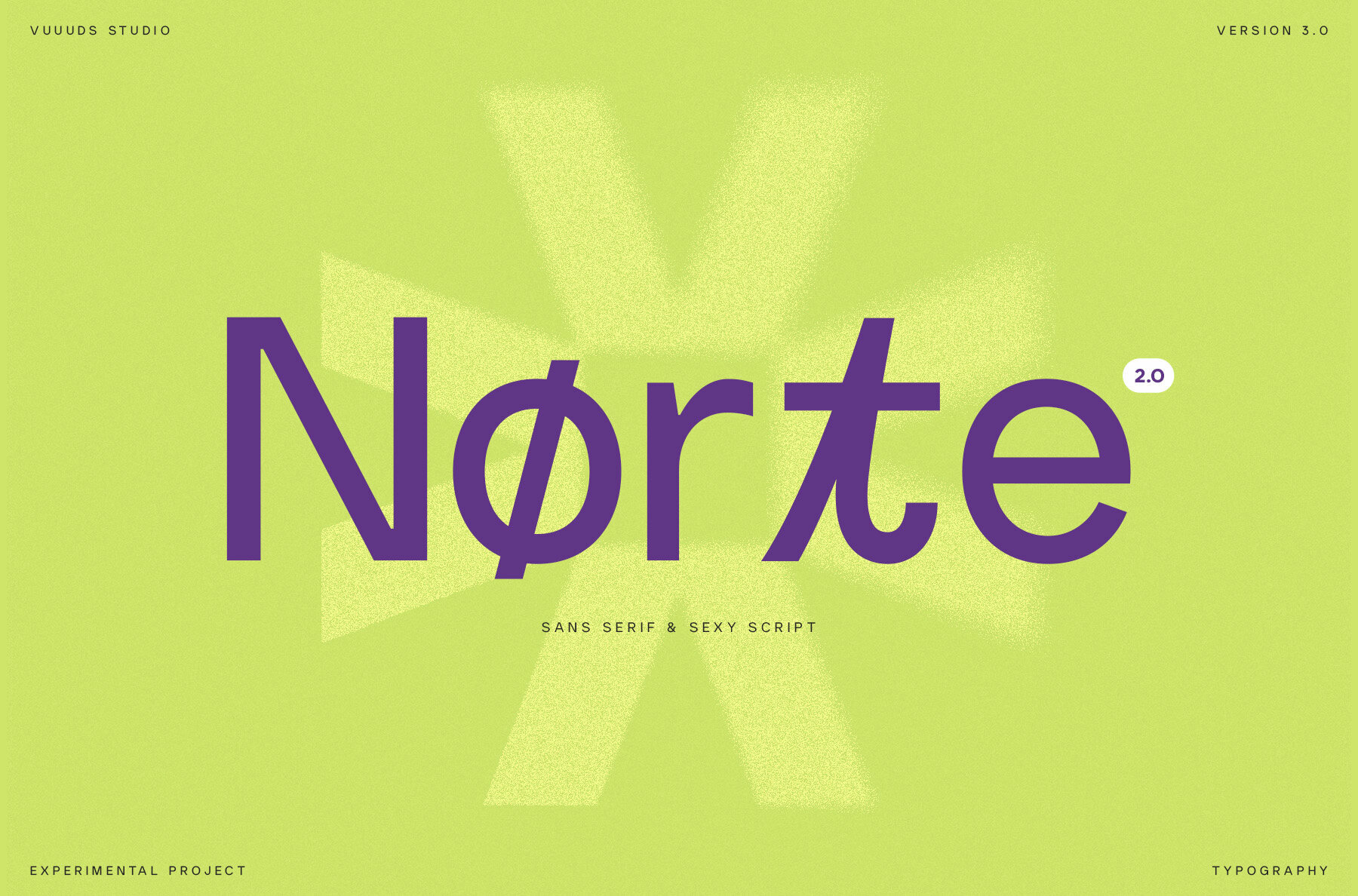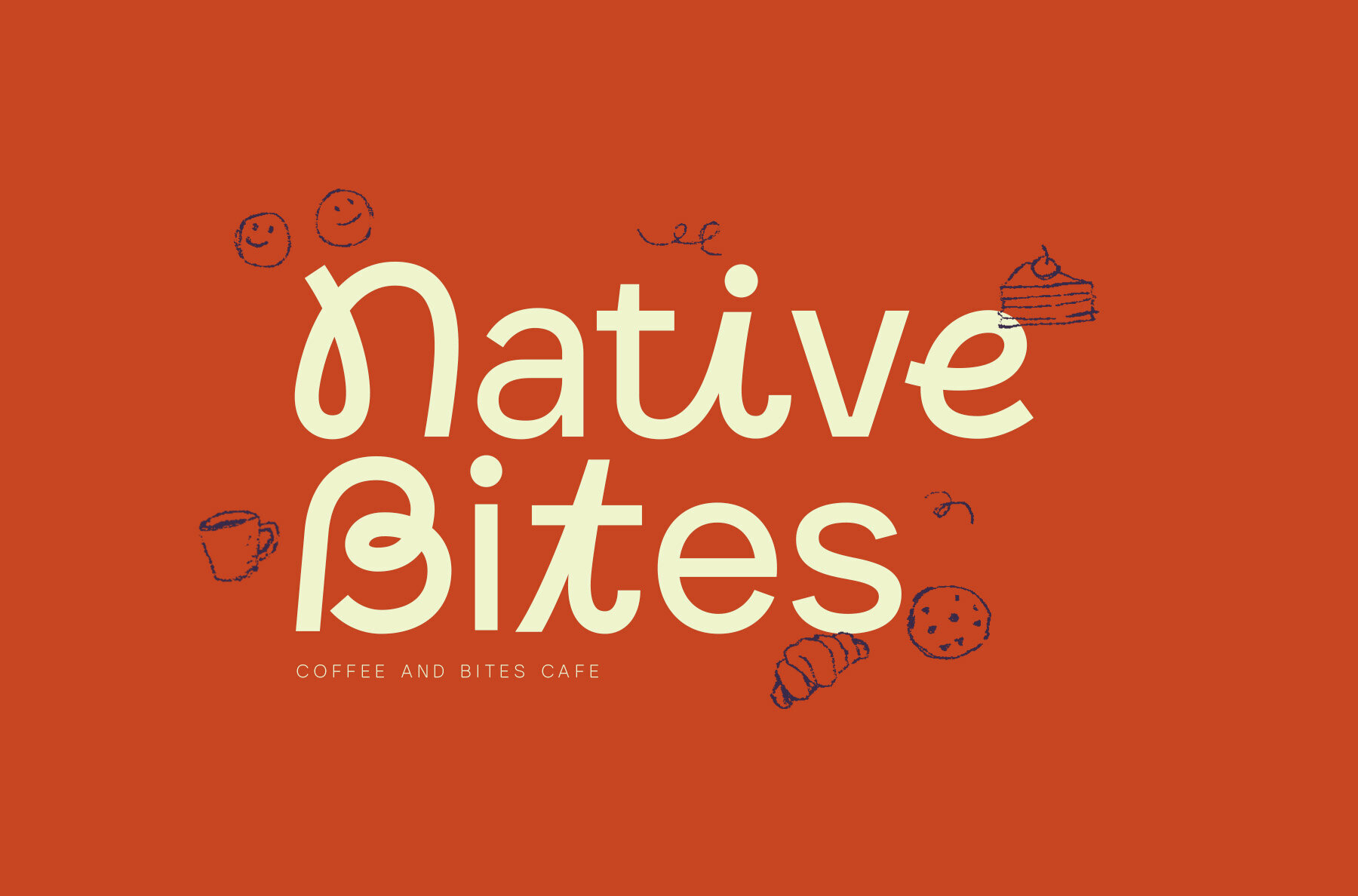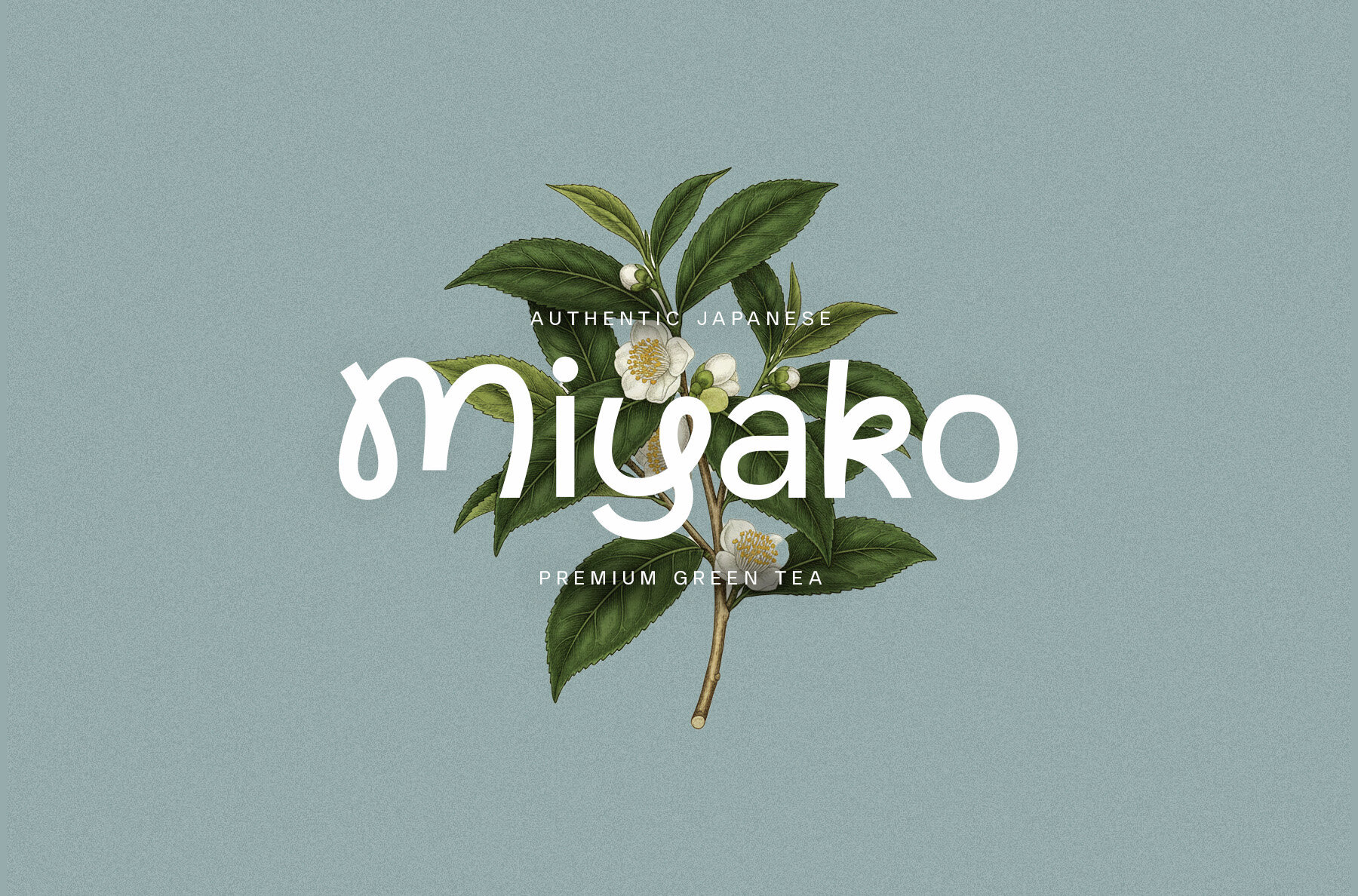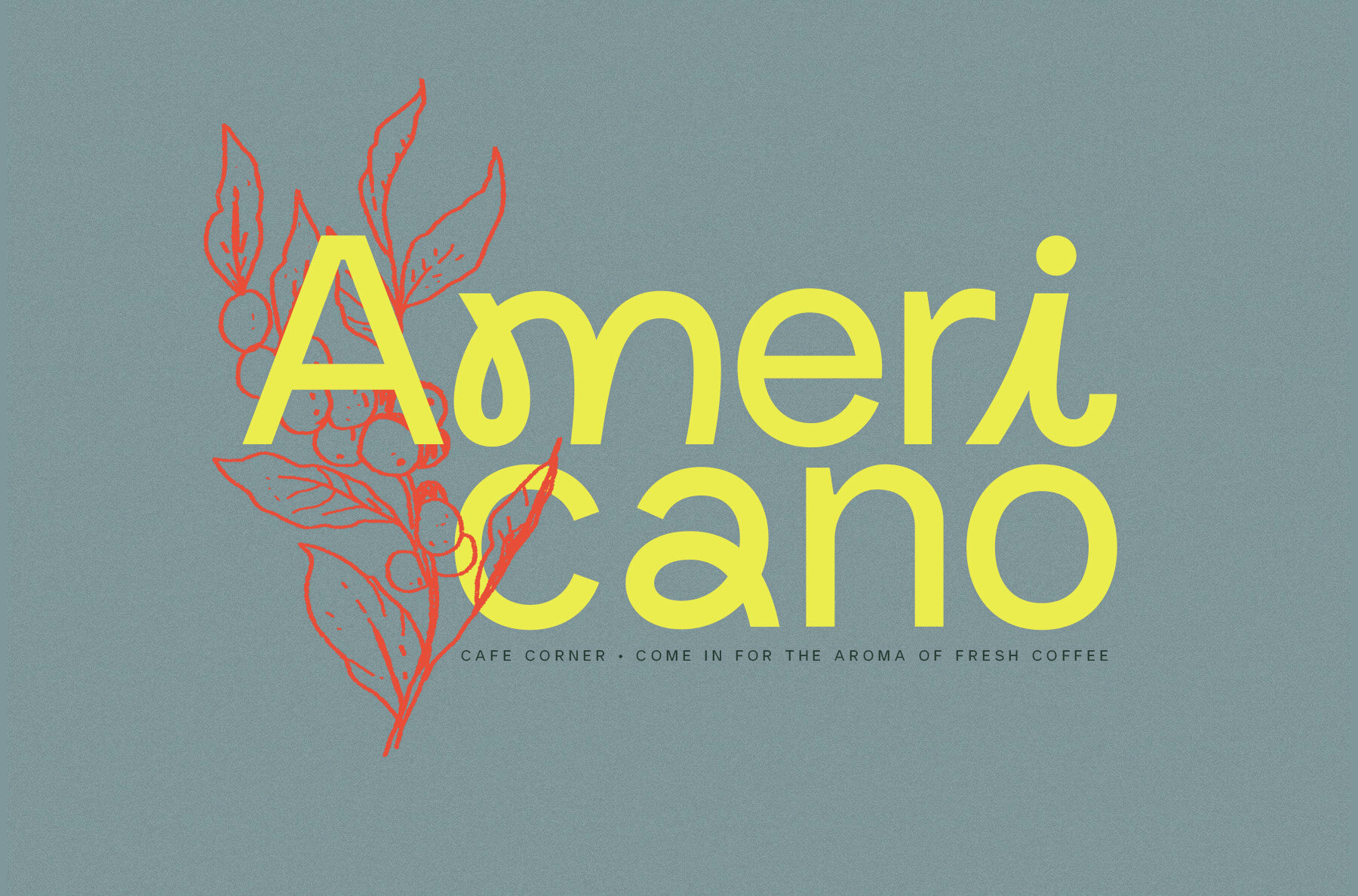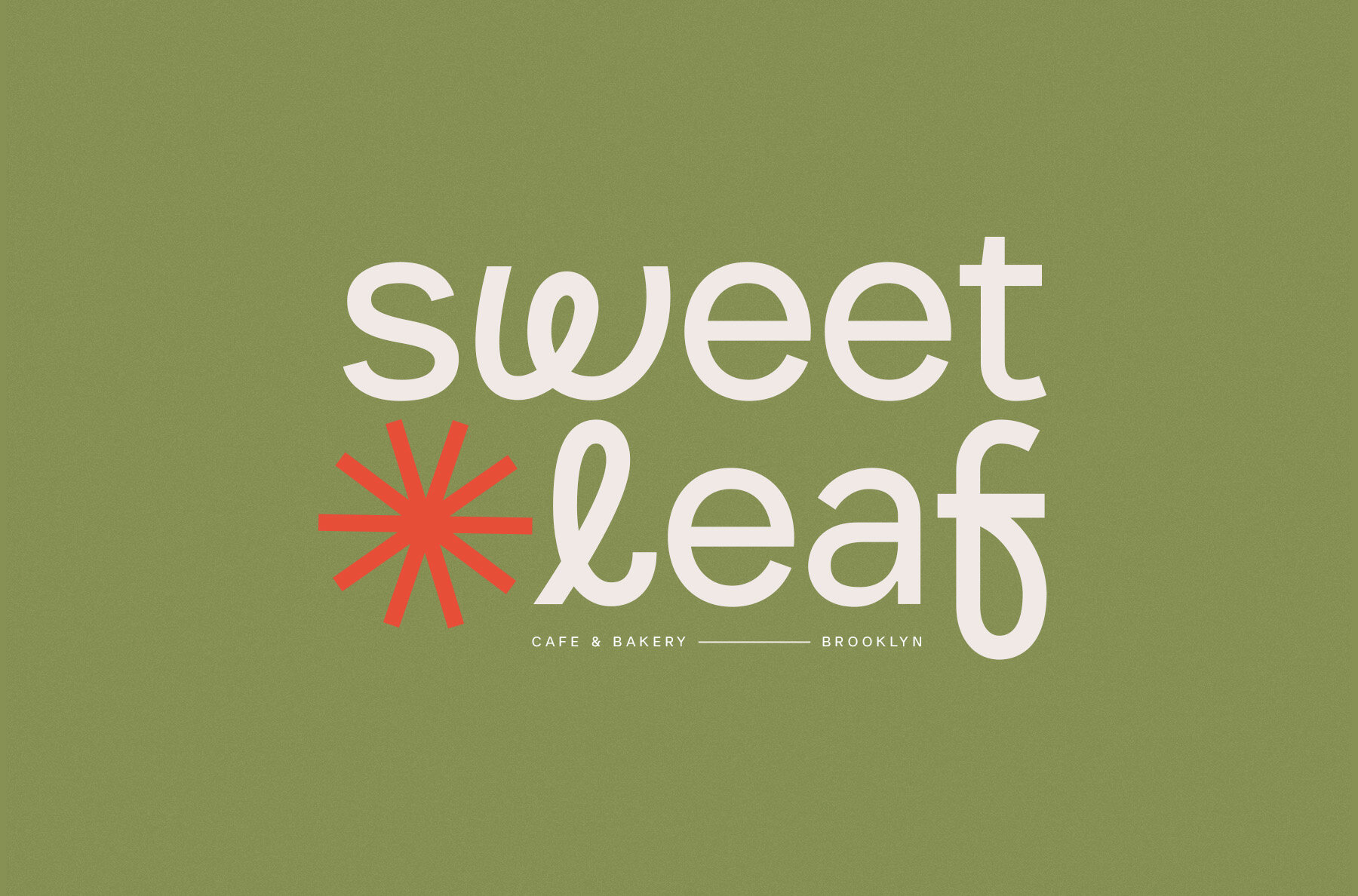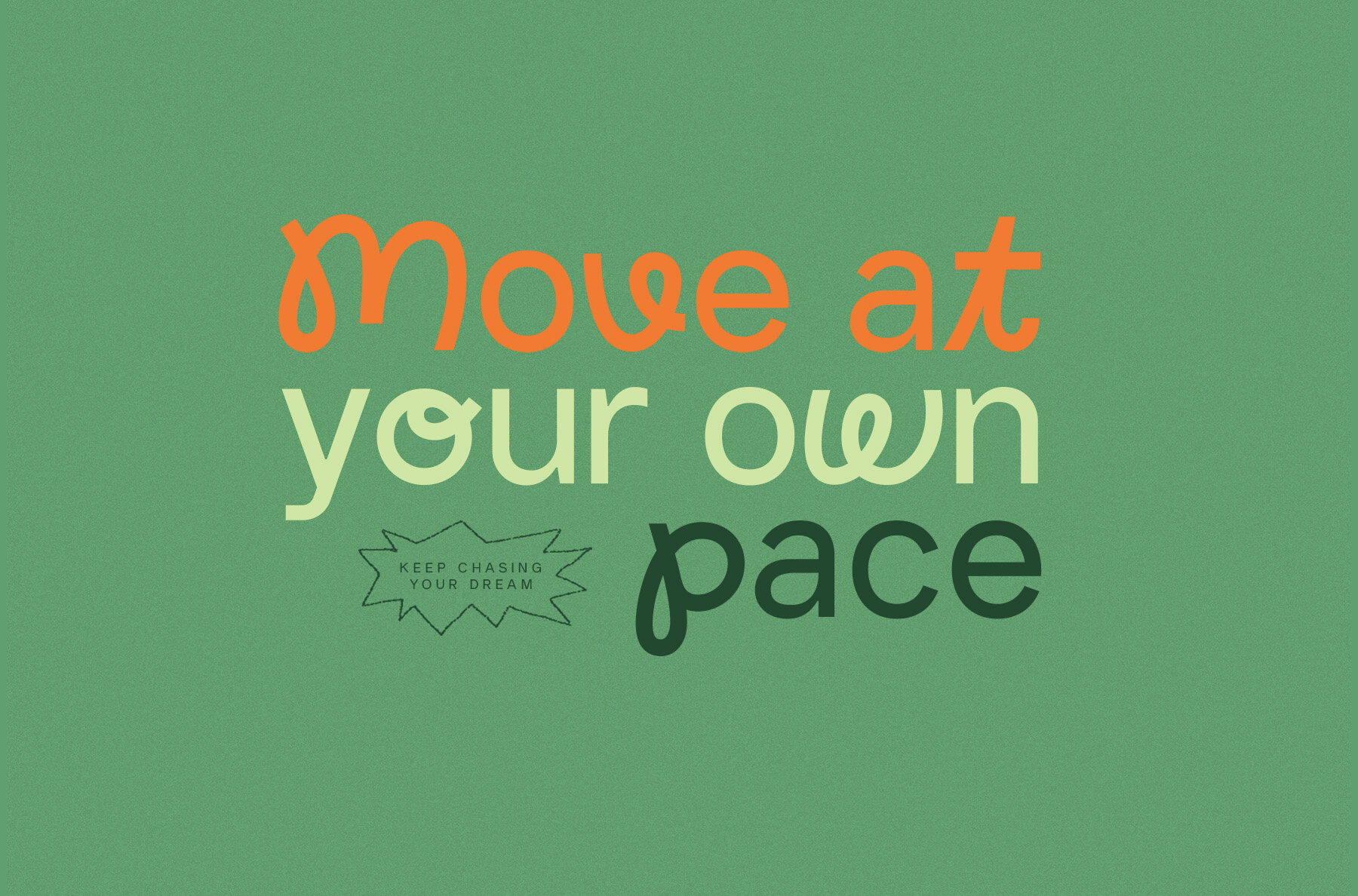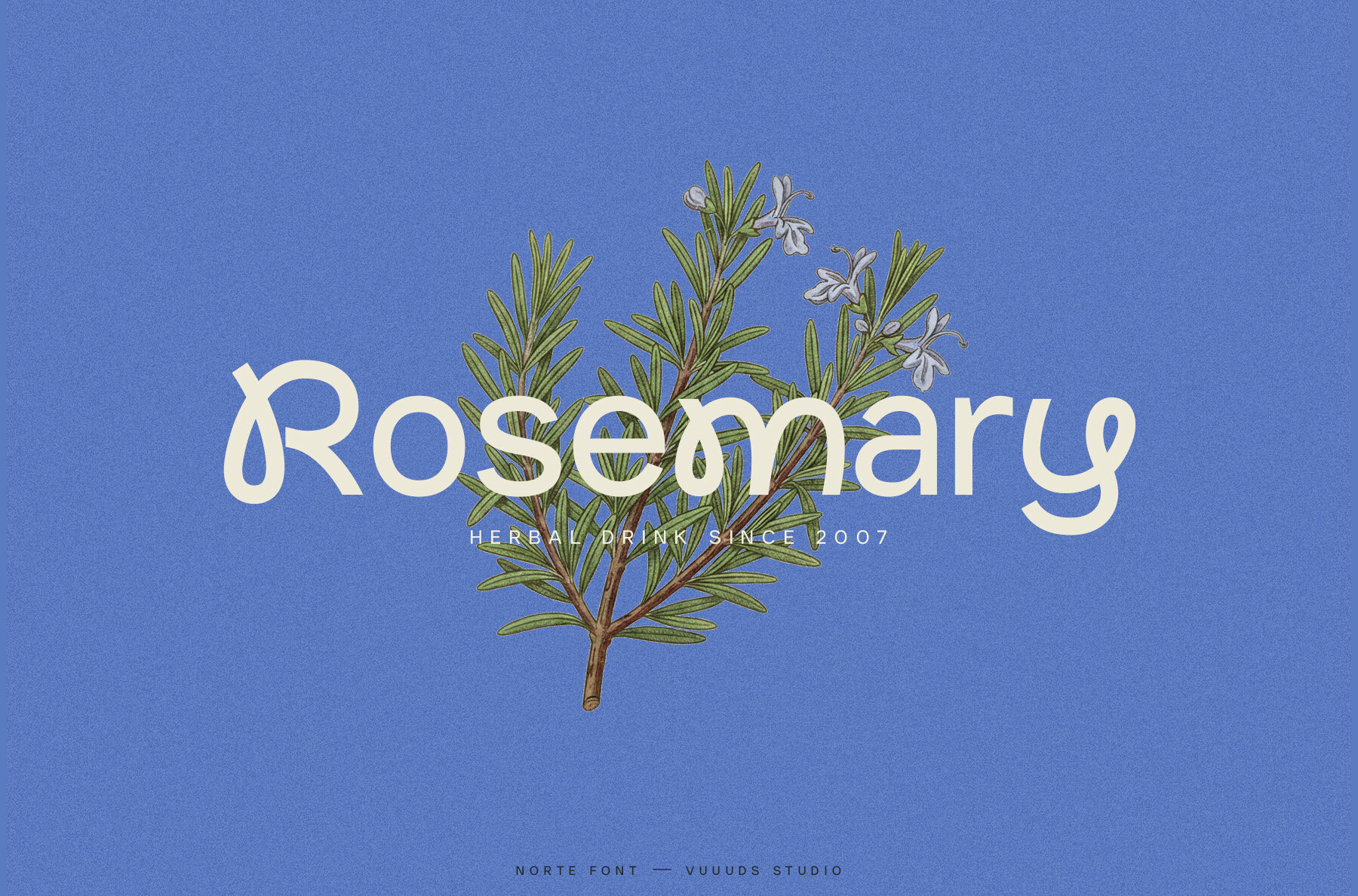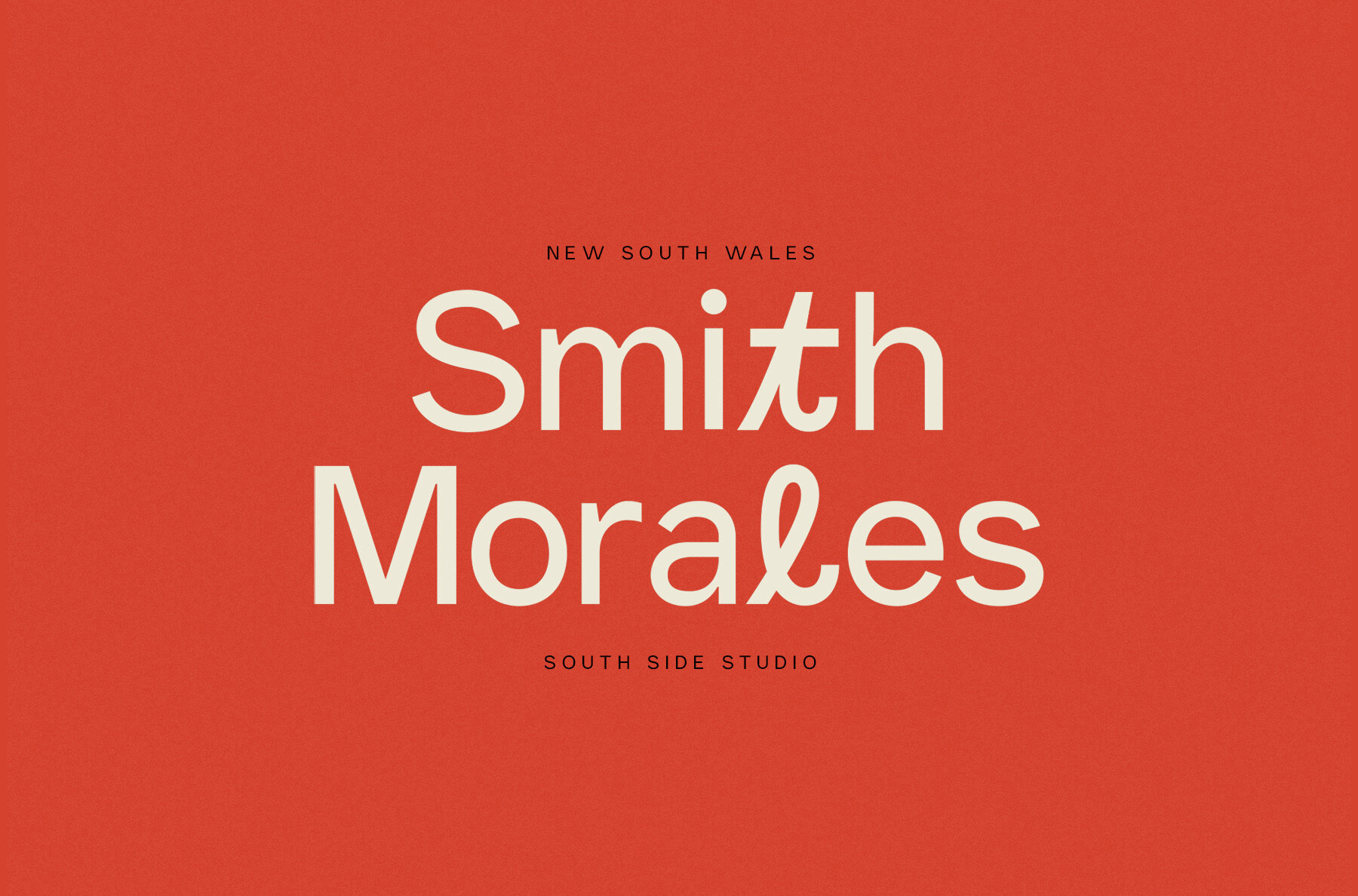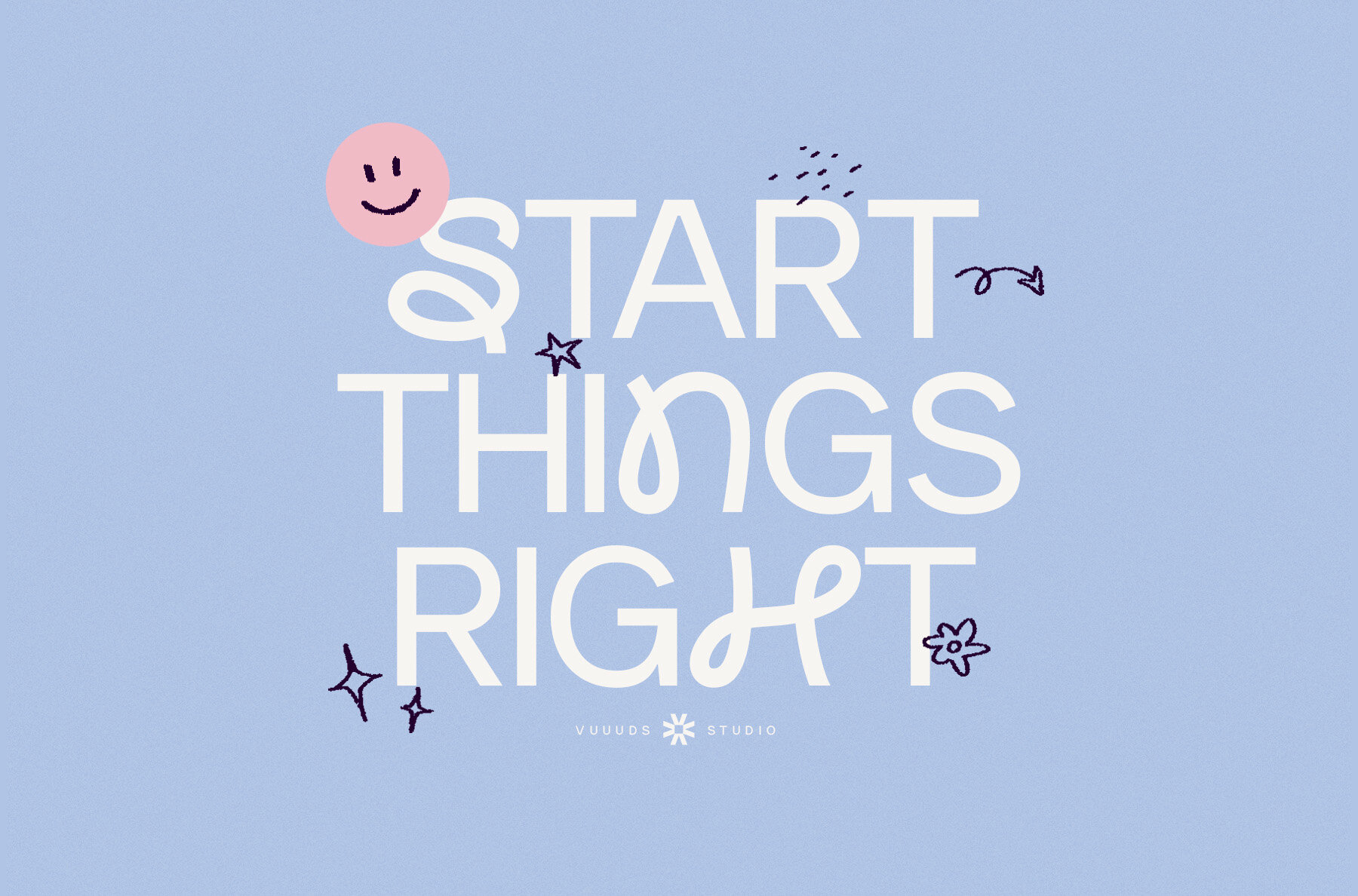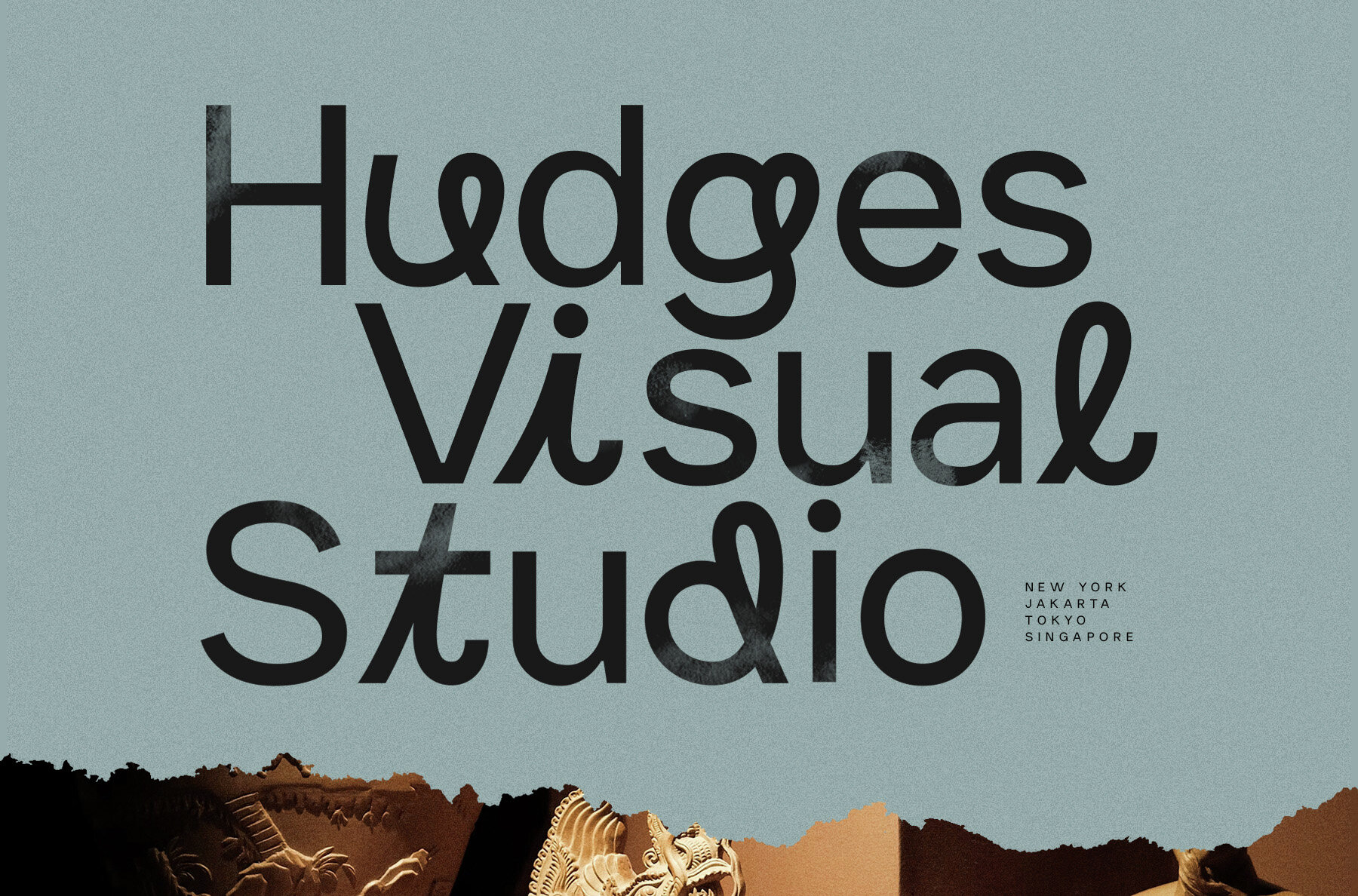
Norte Font
Norte Font offers a dual typeface experience, seamlessly merging readability with stylistic flair. Its geometric sans-serif component ensures clarity, while the modern script adds a touch of fluid elegance. This combination is tailored for crafting impactful visuals, whether for posters, corporate materials, distinctive logos, or cohesive branding projects.Norte Font: Balancing Clarity and Personality